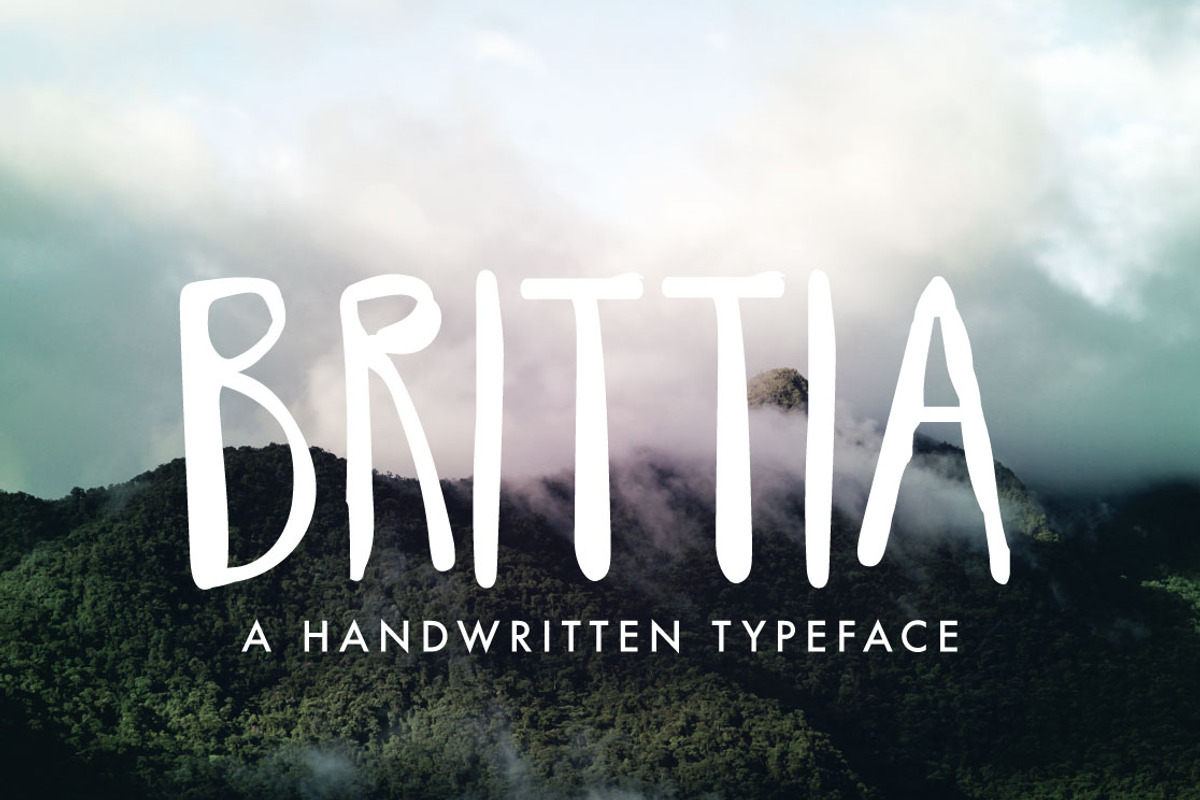
Brittia Handwritten Font
Brittia Handwritten Font by The Higgins Creative is a font selected for branding, posters, packaging, typography.
Why Brittia Handwritten Font is worth a look
Brittia Handwritten Font by The Higgins Creative fits naturally into Branding, posters, packaging, typography.